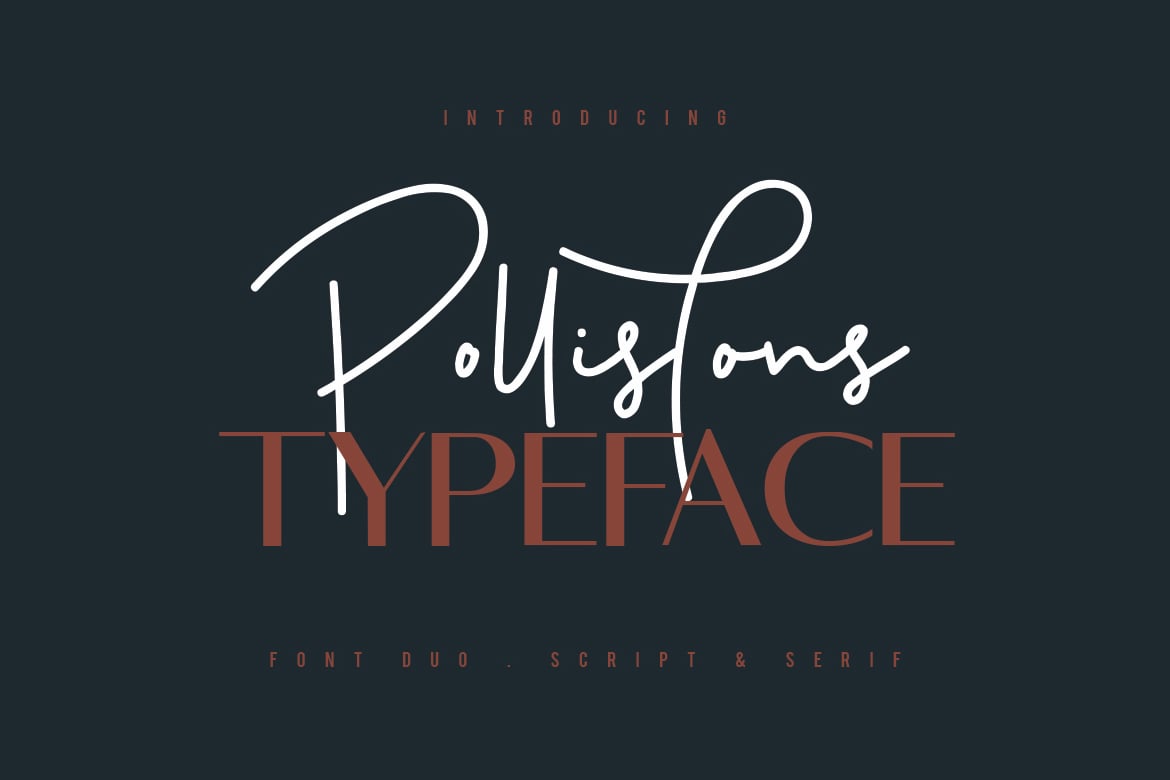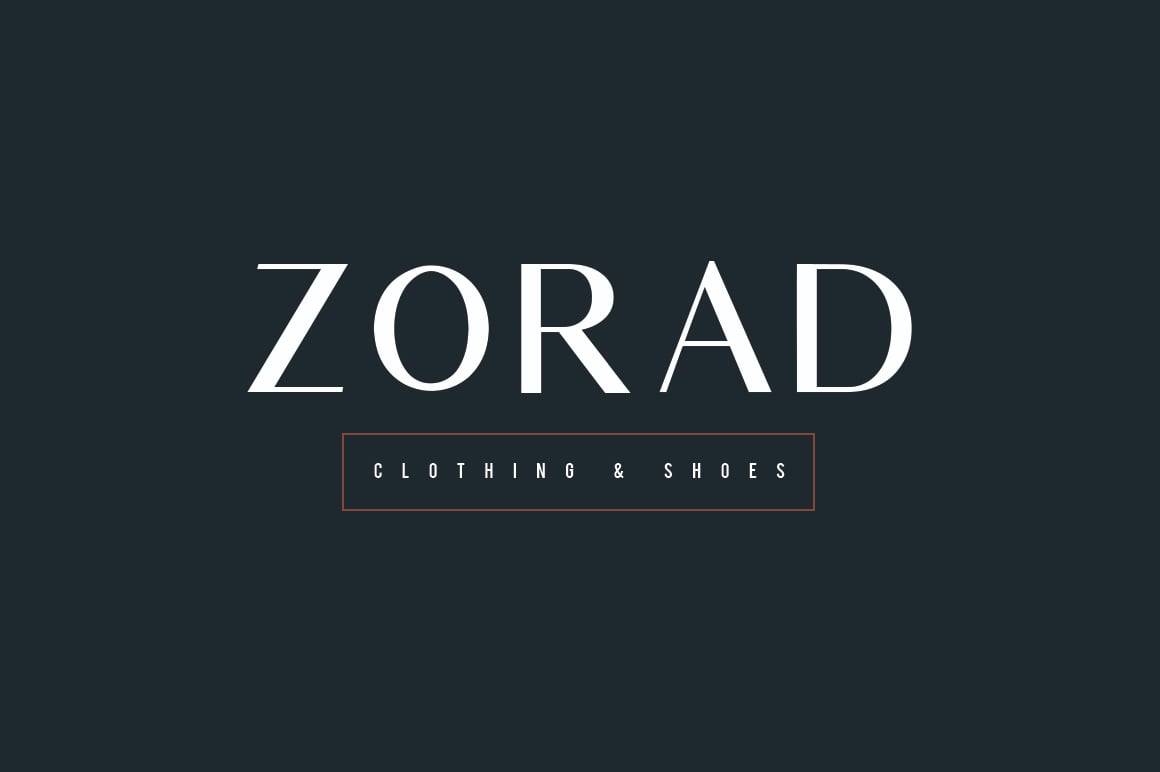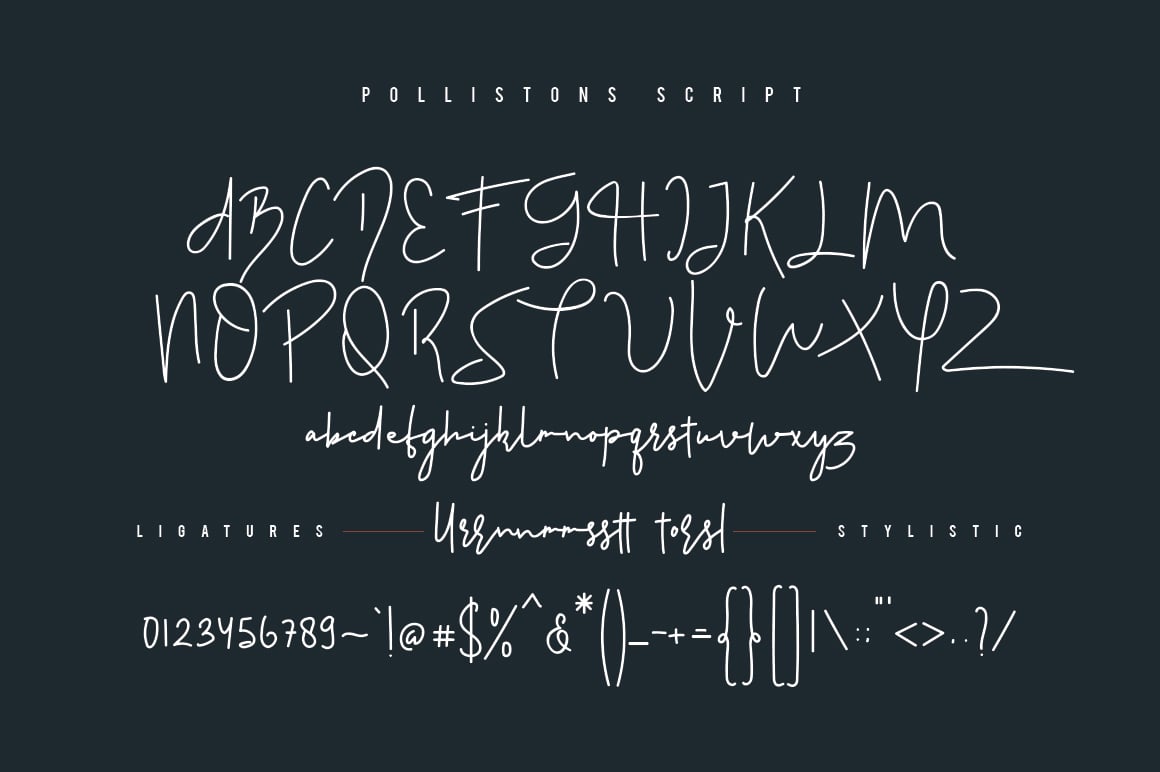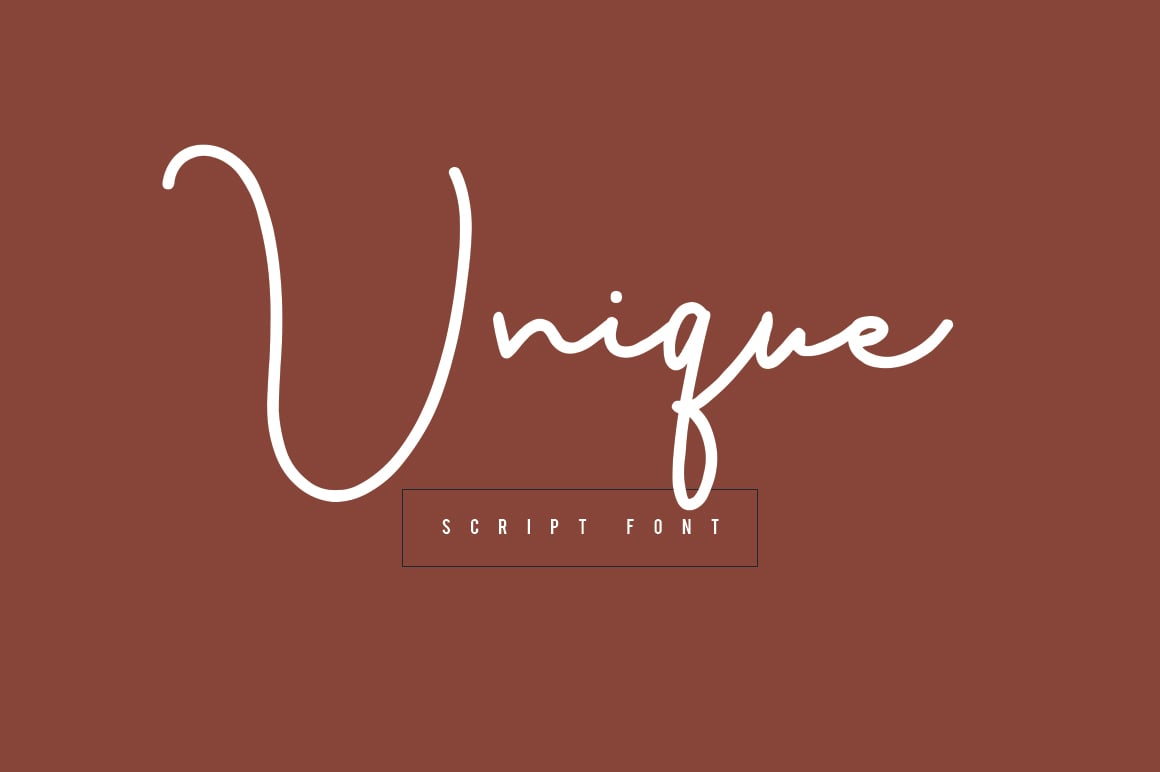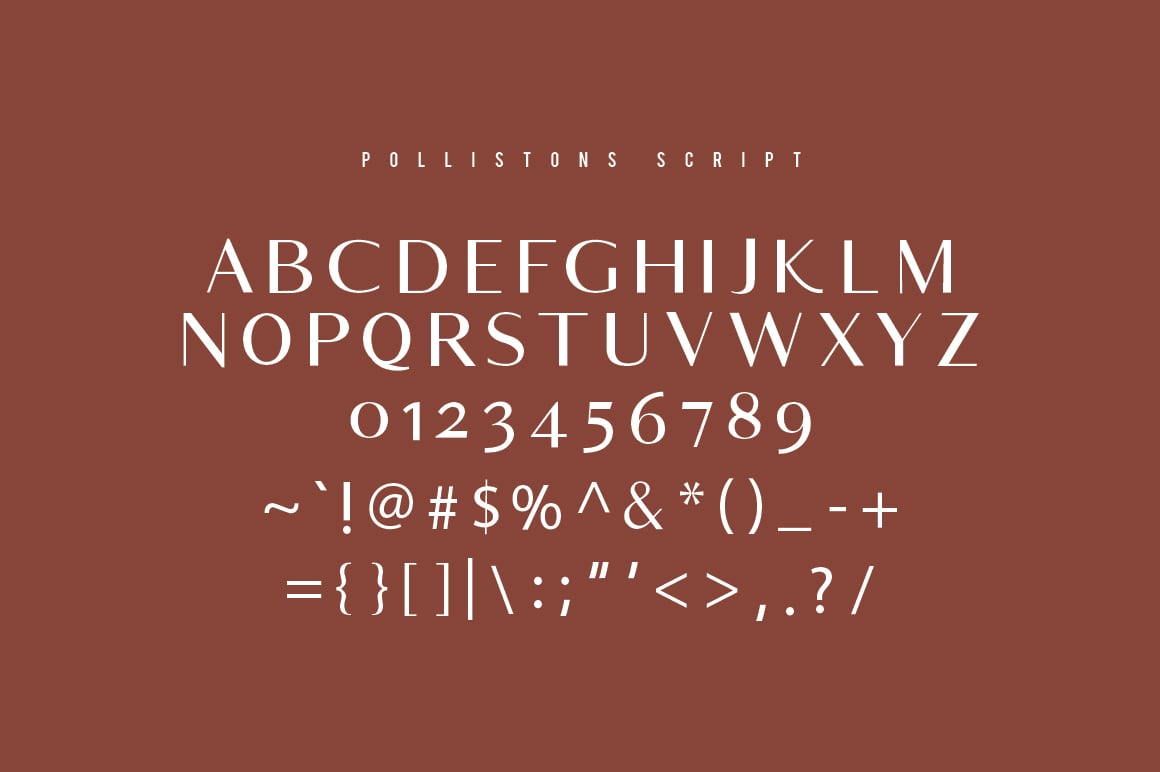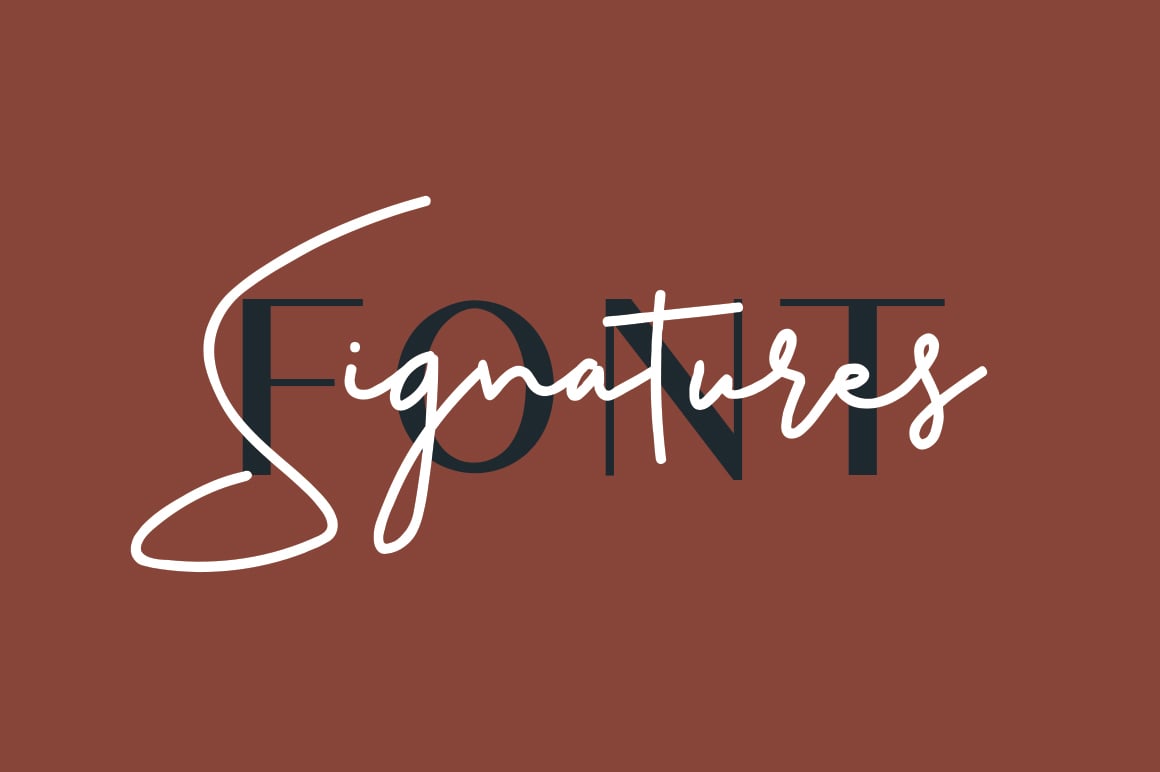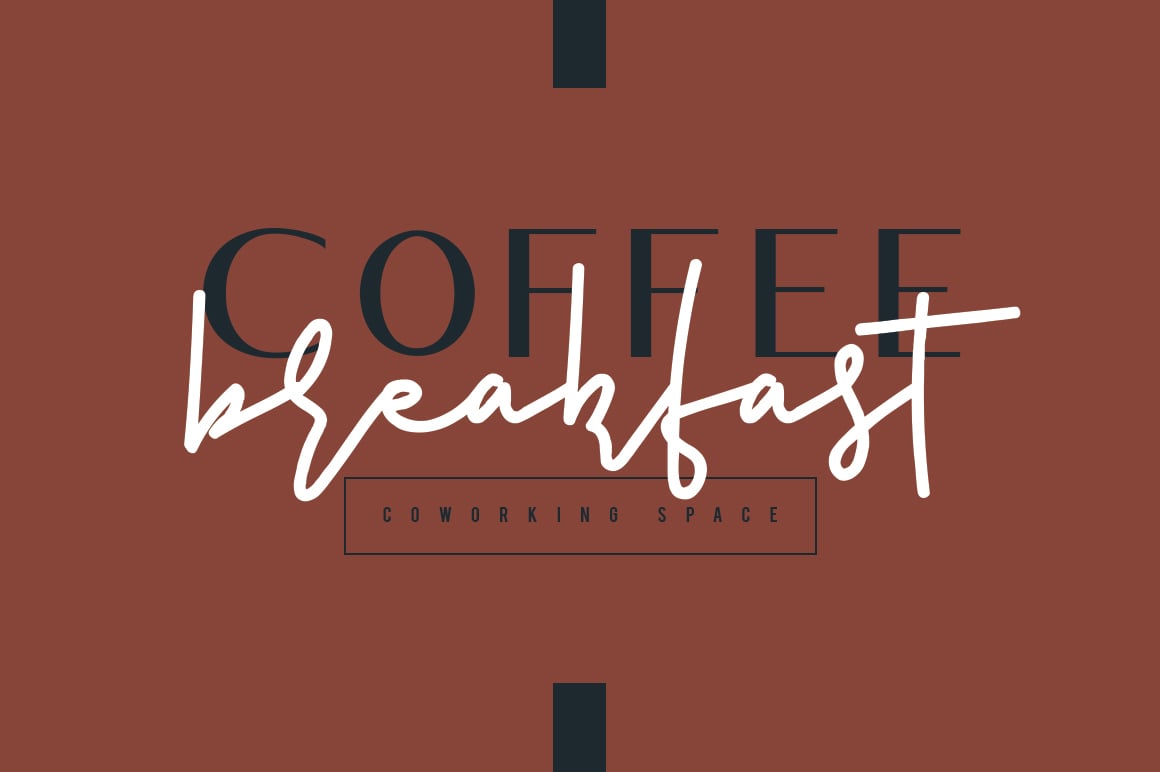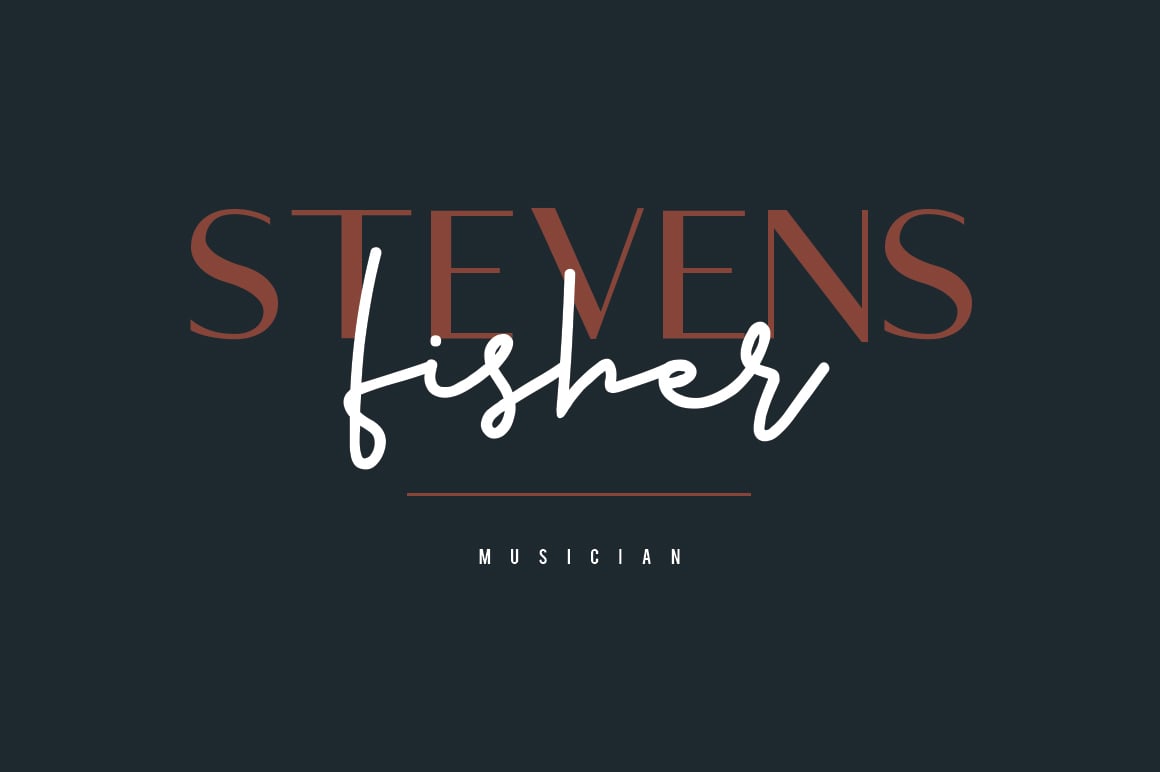
Pollistons Signature Font
Give your designs an authentic handcrafted feel. “Pollistons” is perfectly suited to signature, stationery, logo, typography quotes, magazine or book cover, website header, clothing, branding, packaging design and more.
- Pollistons-Script Ligatures “ll, rr, mm, nn, ss, tt”
- Pollistons-Script Stylistic Alternates “t, o, r, s, l”